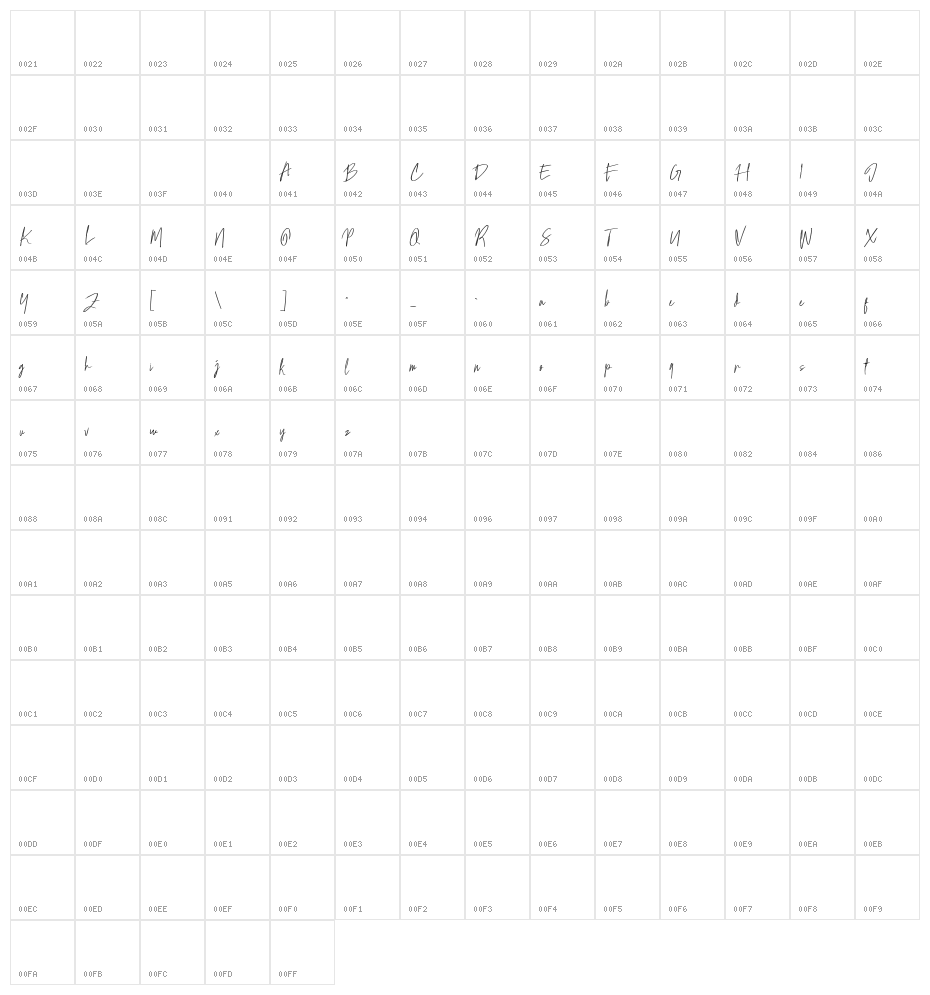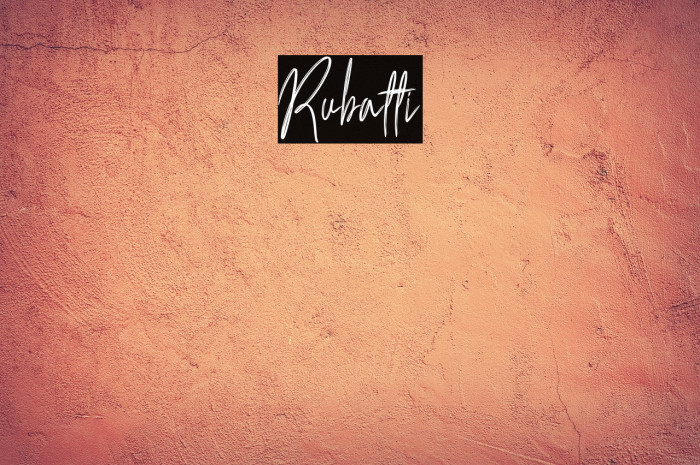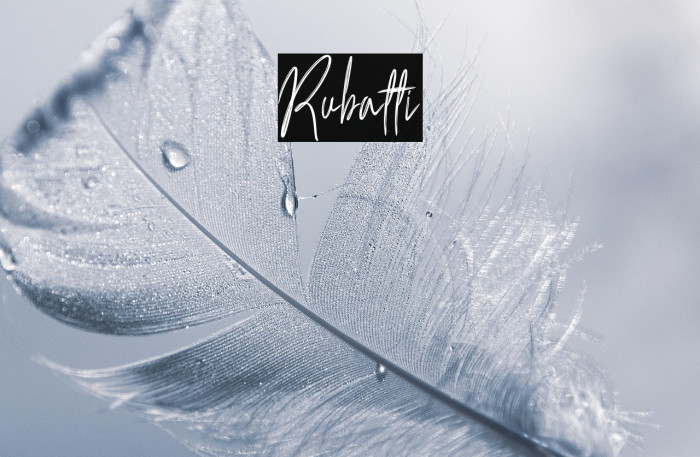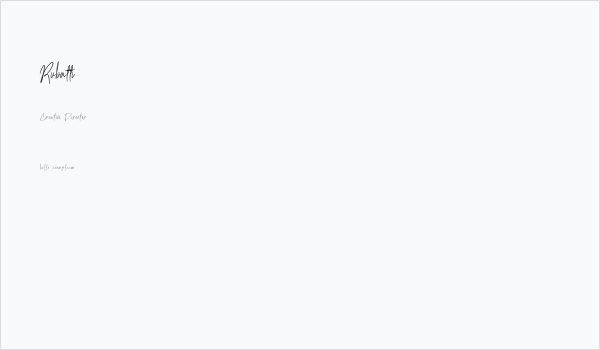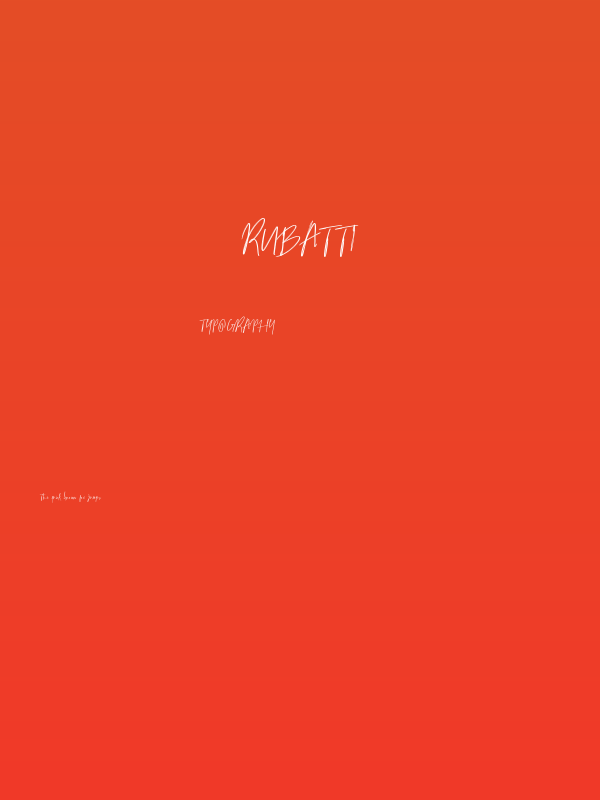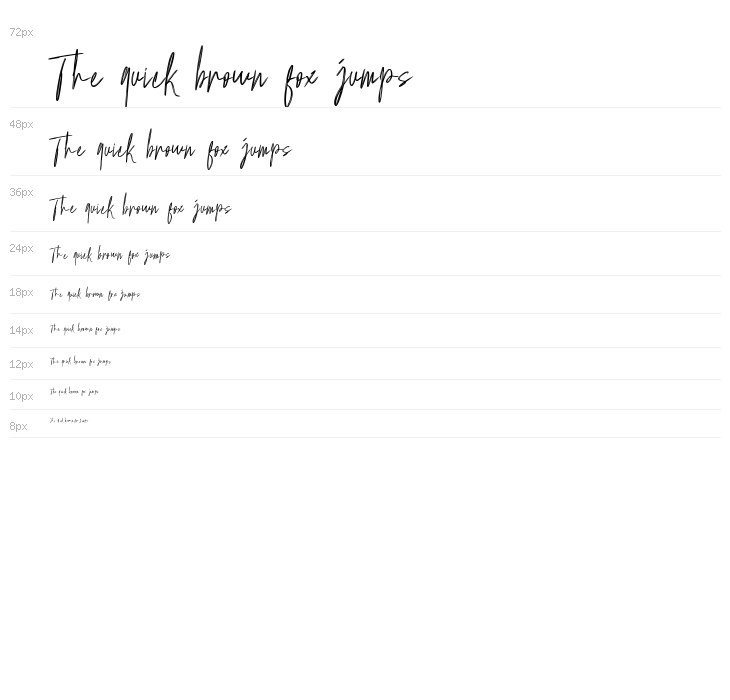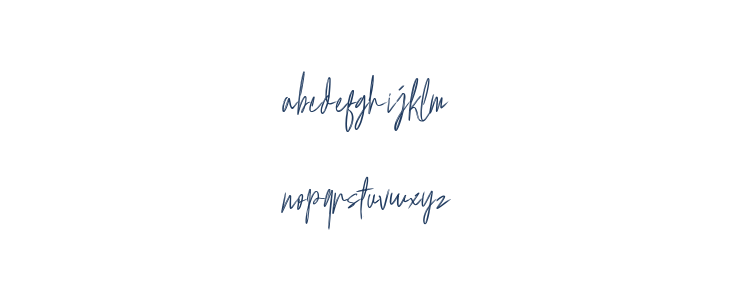
Rubatti Font
Rubatti Description
This font exhibits a dynamic and flowing handwritten style, characterized by its elegant and slightly irregular strokes. The uppercase letters are bold and expressive, with a slight slant that adds a sense of movement and energy. The lowercase letters maintain a consistent style, offering a harmonious balance between readability and artistic flair. The numerals and special characters are crafted with the same attention to detail, ensuring a cohesive look across all glyphs. The overall appearance is modern and stylish, making it suitable for projects that require a personal and creative touch.